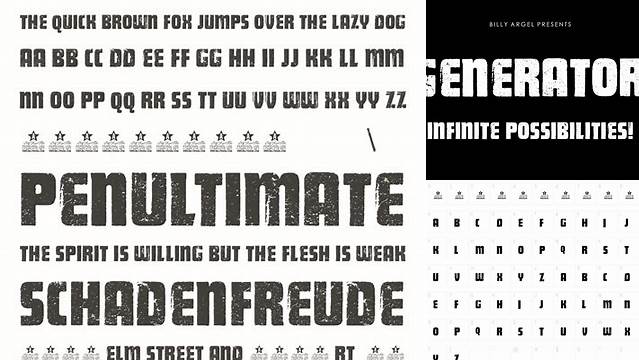
Free Personal Use Fonts: Download & Generator Guide
Hey guys! Are you on the hunt for that perfect font to give your personal projects a unique touch? You know, the kind of font that screams 'This is me!' Well, you've come to the right place! In this comprehensive guide, we'll dive deep into the world of generator personal use fonts free download, exploring everything from what they are and where to find them, to how to use them effectively and legally. We'll also touch on some common questions and concerns, ensuring you're well-equipped to make the best choices for your creative endeavors. So, grab your favorite beverage, settle in, and let's get started!
The importance of fonts in design cannot be overstated. Fonts are the unsung heroes of visual communication, quietly shaping how we perceive text and overall design aesthetics. Think about it: a playful, handwritten font can evoke feelings of warmth and whimsy, while a sleek, sans-serif font might convey professionalism and modernity. The right font can make your message pop, while the wrong one can make it fall flat. This is especially crucial for personal projects where you want to express your unique style and personality. Whether you're creating invitations for a special event, designing a logo for your personal brand, or crafting social media graphics, your choice of font plays a vital role in the final outcome. That's why finding the perfect personal use font is so essential. It allows you to inject your individuality into your work without breaking the bank. After all, who doesn't love a good free download?
Now, let's talk about font generators. These are cool tools that allow you to create your own fonts, or customize existing ones. While you won't find fully functional, professional-grade fonts popping out with a single click (that's where skilled type designers come in!), these generators can be a fun way to experiment and create unique lettering for personal projects. There are several online font generators that you can use to create your own fonts. These tools vary in complexity, but most allow you to draw individual characters or upload existing images to create a custom typeface. Some popular font generators include Calligraphr, FontStruct, and BirdFont. These tools are particularly useful if you have a specific handwriting style you want to digitize or if you're looking to create a truly unique and personalized font.
Calligraphr is a popular choice for those who want to turn their handwriting into a font. You simply download a template, fill it in with your characters, upload it back to the site, and Calligraphr will generate a font file for you. It's a fantastic way to add a personal touch to your projects and create a font that is uniquely yours. FontStruct is a browser-based font editor that allows you to build fonts using geometric shapes. It's a more technical approach to font creation, but it can yield some interesting and modern results. FontStruct is particularly well-suited for creating pixel fonts or fonts with a geometric aesthetic. BirdFont is a free, open-source font editor that offers a more comprehensive set of features than some of the online generators. It's a desktop application, so you'll need to download and install it on your computer, but it provides a more professional environment for font design. With BirdFont, you can create complex glyphs, adjust kerning and spacing, and export your fonts in various formats. These tools open up a world of creative possibilities, allowing you to not only find and use existing fonts but also to craft your own unique typefaces. However, it's important to remember that font creation is a complex process, and achieving professional-quality results often requires significant time, effort, and skill. If you're serious about creating fonts for commercial use, you may want to consider investing in professional font design software and learning the fundamentals of typography. But for personal projects, these font generators can be a fun and accessible way to explore the art of typeface design.
So, there you have it, guys! A deep dive into the world of generator personal use fonts free download. We've covered everything from what they are and where to find them, to how to use them legally and effectively. Remember, the perfect font can truly elevate your personal projects, so take your time, explore your options, and have fun with it! By understanding the nuances of font licensing and usage, you can confidently create stunning designs that reflect your unique style and personality. The world of fonts is vast and exciting, with endless possibilities for creative expression. So, go forth, download those free fonts, and let your imagination run wild! Happy designing!